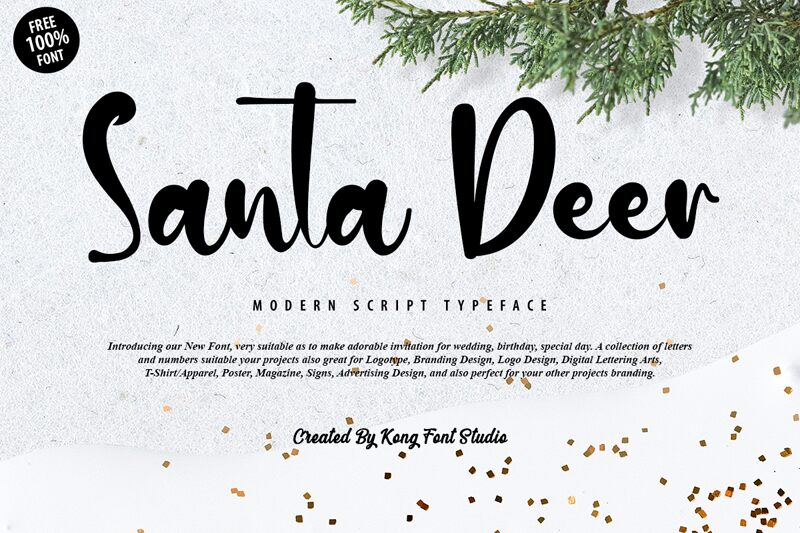
Santa Deer
Say hello to Santa Deer, the perfect font for all your modern script needs. Designed by Kong Font, this semi-bold typeface is both sleek and sophisticated, making it a great choice for projects in need of a stylish edge. Whether you're working on branding materials, invitations or even product packaging, Santa Deer is sure to make an impression. Its flowing lines and elegant curves lend themselves well to everything from wedding invitations to social media graphics. So why settle for anything less than perfection? Let Santa Deer take your design game to the next level!